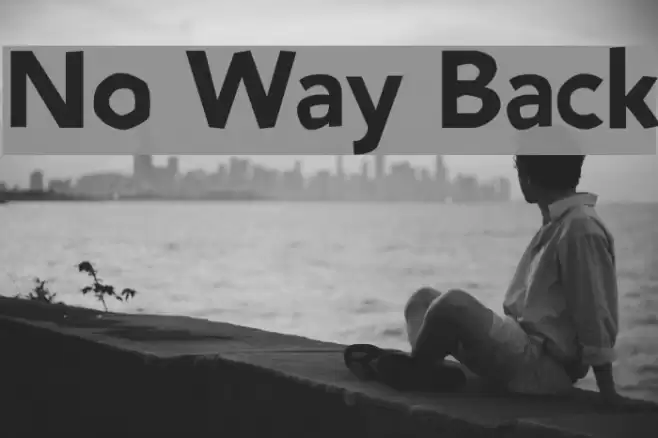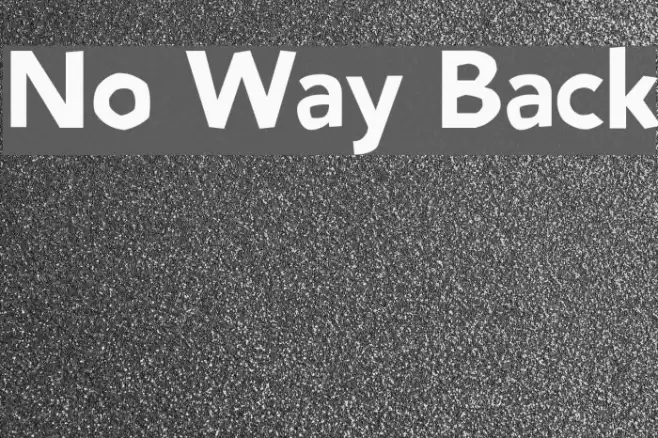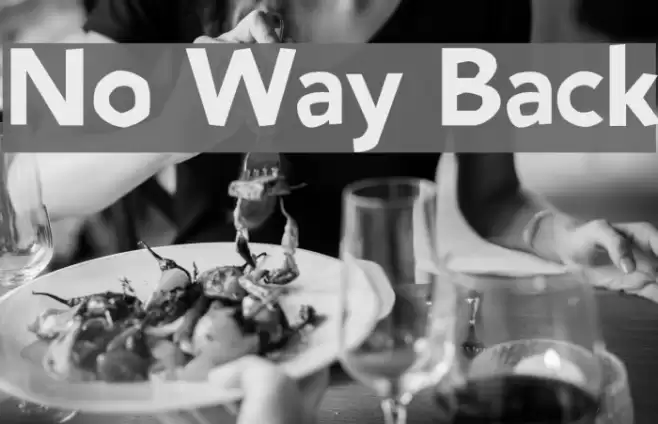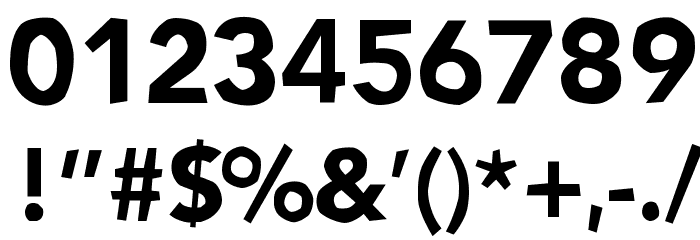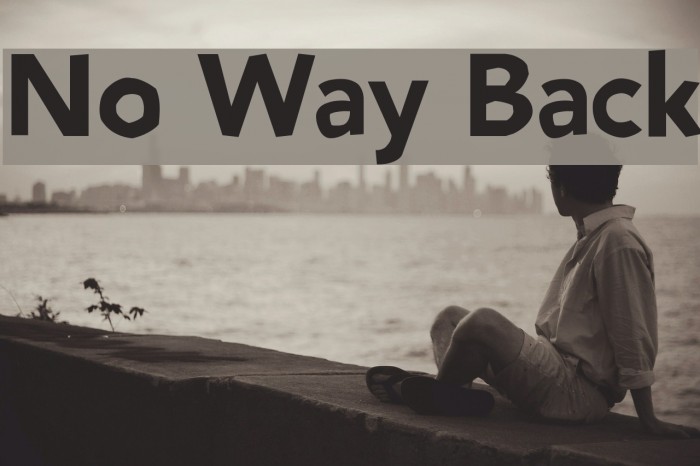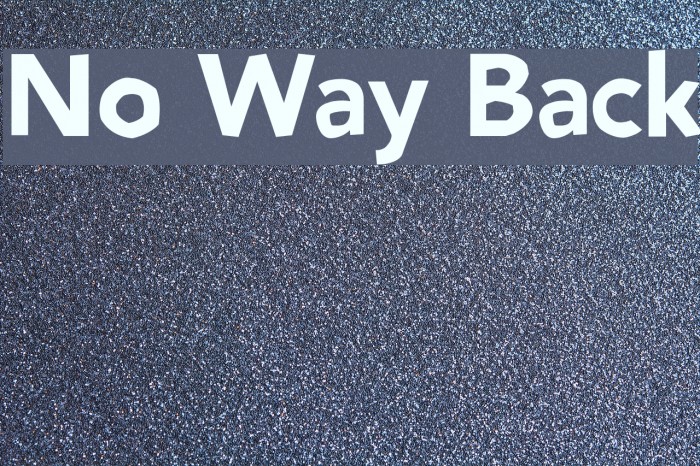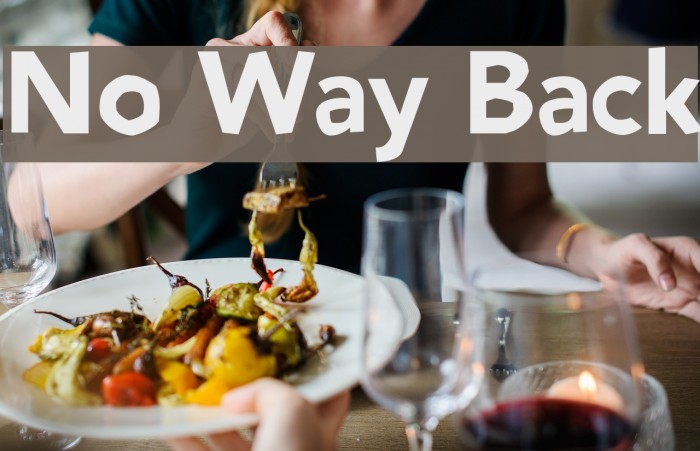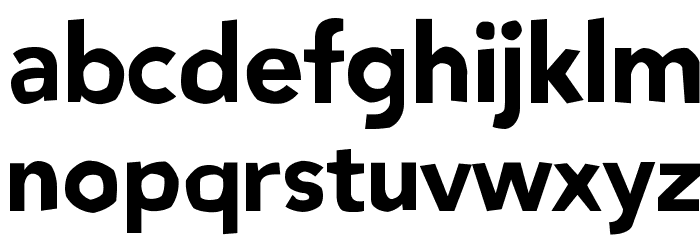
No Way Back Font
No Way Back Description
This font features a bold and modern sans-serif design with clean lines and a strong presence. The uppercase letters are robust and slightly condensed, giving a compact and powerful look. The lowercase letters maintain a consistent style with rounded edges that add a touch of softness to the overall appearance. The numerals are clear and easily distinguishable, making them suitable for various applications. Special characters are well-integrated, maintaining the font's cohesive style. The overall design is versatile, making it suitable for both digital and print media.
A bold, modern sans-serif font with clean lines and a strong presence from Uncategorized fonts.
- Proposed Projects: Ideal for branding, advertising, headlines, and digital media projects.
- Use Case: Headlines, Logos, Branding